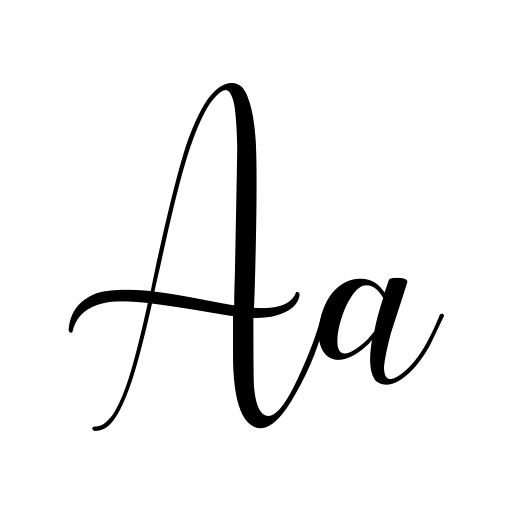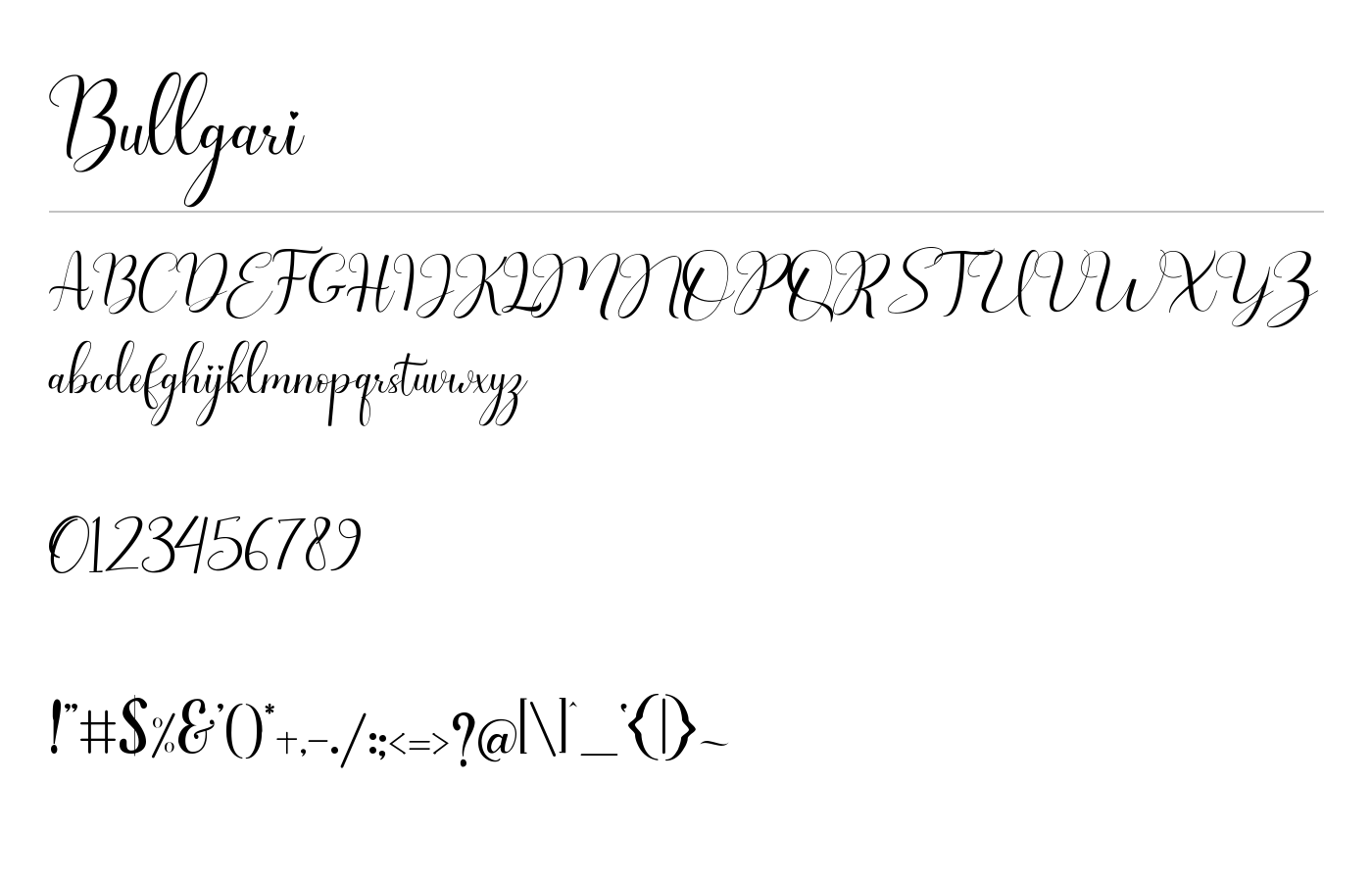
Bullgari is an elegant, flowing script font with a delicate, high-contrast stroke that combines thin, graceful lines with smooth curves. Its tall, slender letterforms and refined details evoke a sophisticated and romantic feel, making it perfect for luxury branding, wedding invitations, and stylish editorial designs. This font works best in large sizes where its artistic flair can shine, adding a touch of elegance and femininity to any project.
Bullgari Font
About Bullgari Font
| Font family | Bullgari Font |
| Designer | MUHAMMAD YONI |